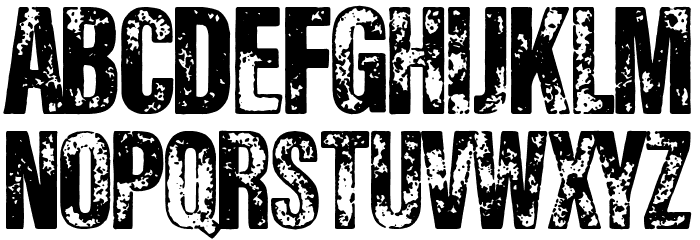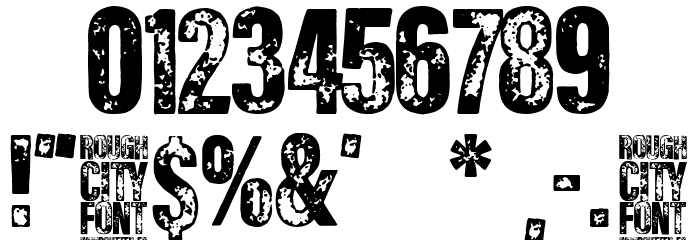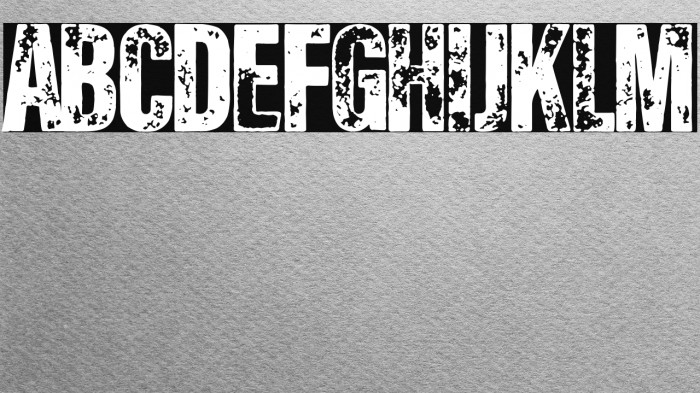
Rough City Font
This font features a bold, distressed style with a gritty, urban aesthetic. The characters are heavily textured, giving them a worn, weathered appearance reminiscent of graffiti or street art. Each letter and number is uniquely distressed, adding to the overall rugged and raw feel. The font's boldness ensures high visibility, making it ideal for impactful designs. The rough edges and irregular patterns contribute to a sense of movement and energy, perfect for projects that require a dynamic and edgy look.
A bold, distressed font with a gritty, urban aesthetic.
- Proposed Projects: Ideal for urban-themed posters, album covers, streetwear branding, and edgy graphic designs.
- Overall Style: Urban, Edgy, Distressed